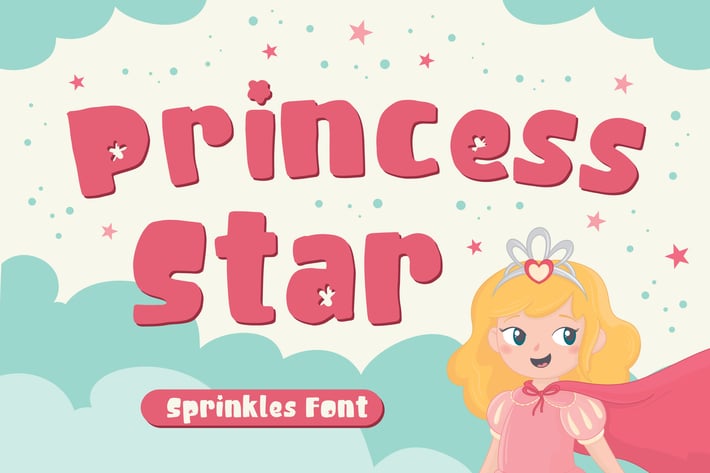
Princess Star – Sprinkles Font
Princess Star is sprinkles font.
This whimsical hand-crafted font sport sprinkles throughout.
Get inspired by its joyful look!